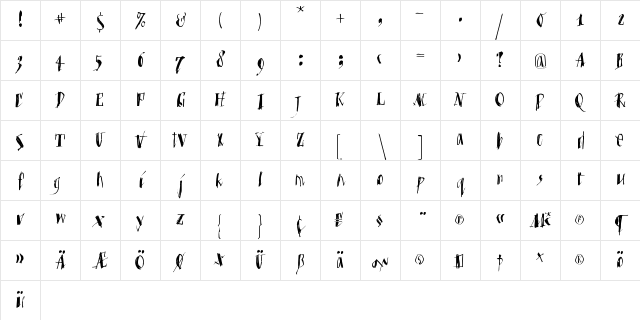
MKristall Regular
Design Context for MKristall
MKristall is a composed and adaptable typeface that performs quietly and consistently across a wide range of design contexts.